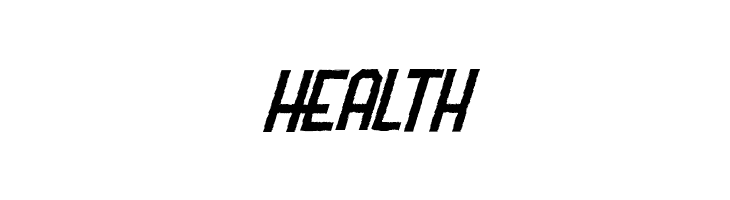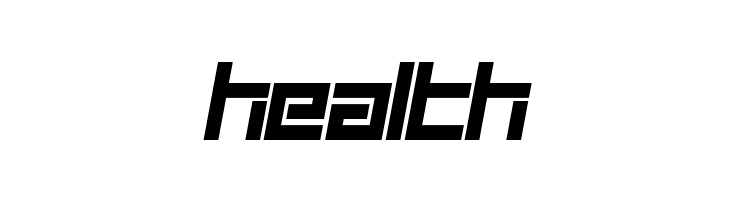
( Fonts by RaisProject )
A bold, modern font with clean lines and a geometric structure.
( Fonts by RaisProject )
A bold, angular italic font with a modern, geometric style.
( Fonts by RaisProject )
A bold, angular font with a rugged, geometric design.
( Fonts by RaisProject )
A playful, melting-effect font with bold, blocky characters.
( Fonts by RaisProject )
A bold, geometric font with sharp angles and a modern, edgy style.
( Fonts by RaisProject )
A bold, geometric font with angular and blocky letterforms.
( Fonts by RaisProject )
A bold, italic, and geometric font with a futuristic style.
( Fonts by RaisProject )
A bold, angular font with a futuristic and industrial aesthetic.
( Fonts by RaisProject )
A geometric, line-based font with a futuristic and edgy design.
( Fonts by RaisProject )
A geometric, angular font with a futuristic and modern aesthetic.